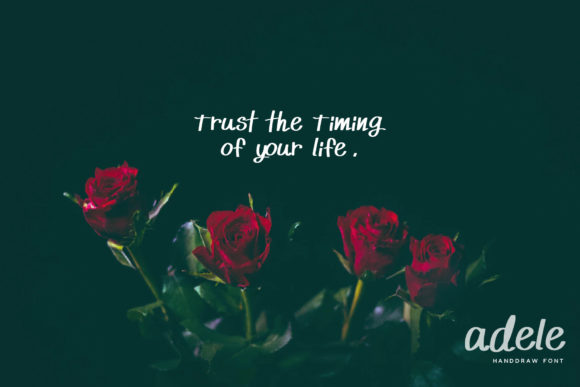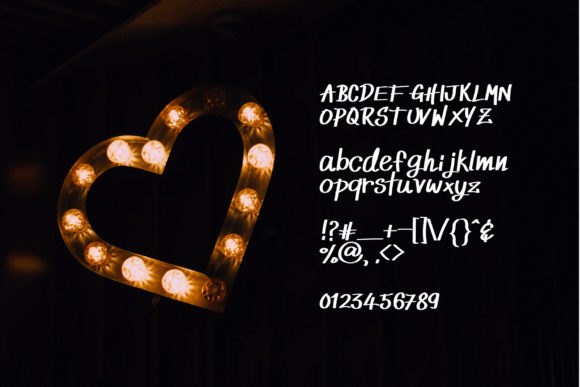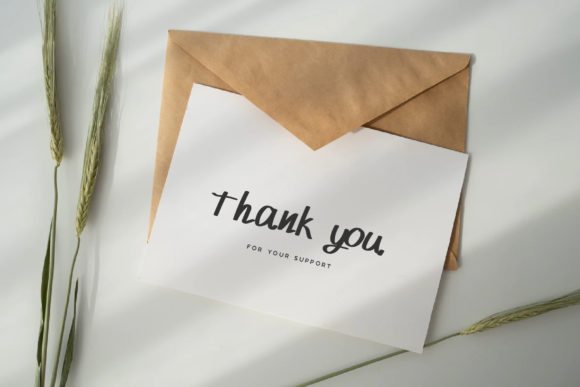
Adele Font: Elevate Your Craft with a Touch of Romance
Adele Font is a beautiful, romantic script that can add a touch of elegance to any craft or design project. With its simple and casual yet fancy feel, Adele Font is perfect for designers and crafters looking to create stunning works of art. In this article, we’ll explore the features and benefits of Adele Font, and how it can elevate your craft to the highest level.
What is Adele Font?
Adele Font is a romantic script font that is designed to add a touch of sophistication and elegance to any design or craft project. Its simple and casual feel makes it perfect for a wide range of applications, from handmade cards and invitations to digital designs and branding projects.
Key Features of Adele Font
- Romantic and Elegant: Adele Font has a romantic and elegant feel that is perfect for creating beautiful and sophisticated designs.
- Simple and Casual: Despite its elegant feel, Adele Font is simple and casual, making it easy to read and use in a variety of contexts.
- Fancy and Sophisticated: Adele Font has a fancy and sophisticated feel that is perfect for creating high-end designs and crafts.
- Versatile: Adele Font is versatile and can be used in a wide range of applications, from digital designs to handmade crafts.
Benefits of Using Adele Font
There are many benefits to using Adele Font in your design or craft project. Some of the most significant advantages include:
- Elegance and Sophistication: Adele Font adds a touch of elegance and sophistication to any design or craft project, making it perfect for special occasions and high-end applications.
- Easy to Read: Despite its elegant feel, Adele Font is easy to read, making it perfect for use in a variety of contexts, from digital designs to handmade crafts.
- Versatility: Adele Font is versatile and can be used in a wide range of applications, from digital designs to handmade crafts.
- Unique and Creative: Adele Font is a unique and creative font that can help you stand out from the crowd and create designs and crafts that are truly special.
How to Use Adele Font in Your Design or Craft Project
Using Adele Font in your design or craft project is easy. Here are a few tips to get you started:
- Pair with Other Fonts: Adele Font pairs well with other fonts, such as sans-serif fonts and script fonts. Experiment with different pairings to find the one that works best for your project.
- Use in Digital Designs: Adele Font is perfect for use in digital designs, such as social media graphics, blog posts, and email marketing campaigns.
- Use in Handmade Crafts: Adele Font is also perfect for use in handmade crafts, such as handmade cards, invitations, and scrapbooking projects.
- Experiment with Colors and Textures: Adele Font looks great in a variety of colors and textures. Experiment with different colors and textures to find the one that works best for your project.
Adele Font is a beautiful, romantic script that can add a touch of elegance and sophistication to any design or craft project. With its simple and casual yet fancy feel, Adele Font is perfect for designers and crafters looking to create stunning works of art. Whether you’re working on a digital design or a handmade craft, Adele Font is a great choice. So why not give it a try and see the difference it can make in your next project?
Tips and Tricks for Using Adele Font
Here are a few tips and tricks for using Adele Font in your design or craft project:
- Use it Sparingly: Adele Font is a elegant and sophisticated font, so use it sparingly to add a touch of elegance to your project.
- Experiment with Sizes: Adele Font looks great in a variety of sizes, from small and delicate to large and bold.
- Pair with Images: Adele Font pairs well with images, such as photographs and illustrations.